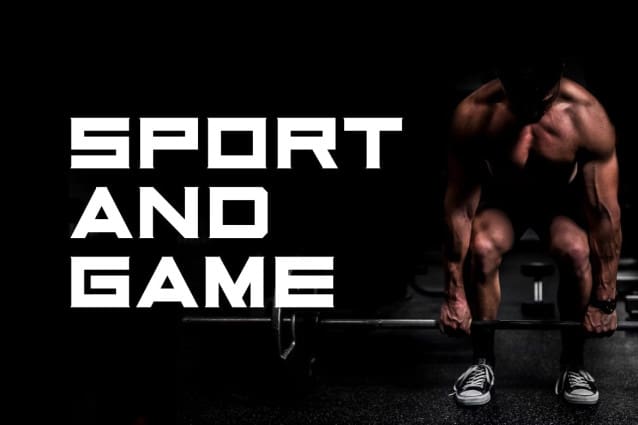
Wizard Sport Font
Wizard Sport Font is a new modern display font. This font is suitable for any branding project such as quotes, logos, blog headers, posters, ribbons, letters, invitations, stationery, etc